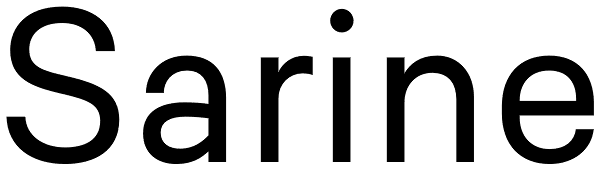
Sarine
Sarine is a sans-serif typeface inspired by signage for traffic. It's a constructed family designed for technical application. The Sarine family includes 7 weights, from Hairline to Black, with their corresponding italics. Each font includes...